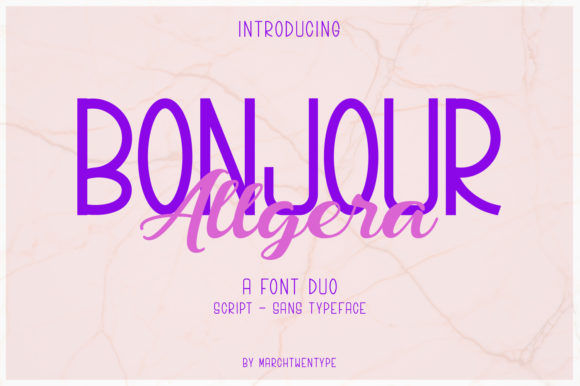
The Elegant Duo: Unpacking the Bonjour Allgera Font
I’ll never forget the time I was working on a luxury branding project for a high-end jewelry client. I had spent hours perfecting the design, but something was missing – the right font. I scrolled through countless font libraries, but nothing seemed to capture the essence of elegance and sophistication I was looking for. That’s when I stumbled upon the Bonjour Allgera Duo Font, a beautiful script and sans serif font duo that instantly elevated my design.
• ✅ The calligraphy style of Bonjour Allgera gives it a luxurious feel, perfect for designs that need a striking yet elegant typeface.
• ✅ The font duo offers a great combination of script and sans serif, providing flexibility for various design elements.
• ✅ The elegant feel of Bonjour Allgera makes it suitable for high-end branding, packaging, and advertising materials.
The Not-So-Perfect: 🤔
• ⚠️ Some users might find the script part of the font a bit challenging to read in smaller sizes, so it’s best used for headlines or larger text.
• ⚠️ As with many script fonts, Bonjour Allgera might not be the best choice for body text or lengthy paragraphs.
The Story Behind Bonjour Allgera: A Designer’s Inspiration
Bonjour Allgera was crafted with the vision of combining elegance with versatility. Designers aimed to create a font duo that could seamlessly blend into luxury branding, yet remain approachable and stylish. The result is a beautiful script and sans serif duo that brings an air of sophistication to any design.
Is Bonjour Allgera suitable for body text? While Bonjour Allgera is stunning for headlines and titles, its script part might be less readable in smaller sizes for body text. It’s best used for larger text elements.
Does Bonjour Allgera support OpenType features? Yes, Bonjour Allgera supports OpenType features, including glyphs and stylistic alternates, which can be accessed through compatible software like Adobe Creative Cloud applications.